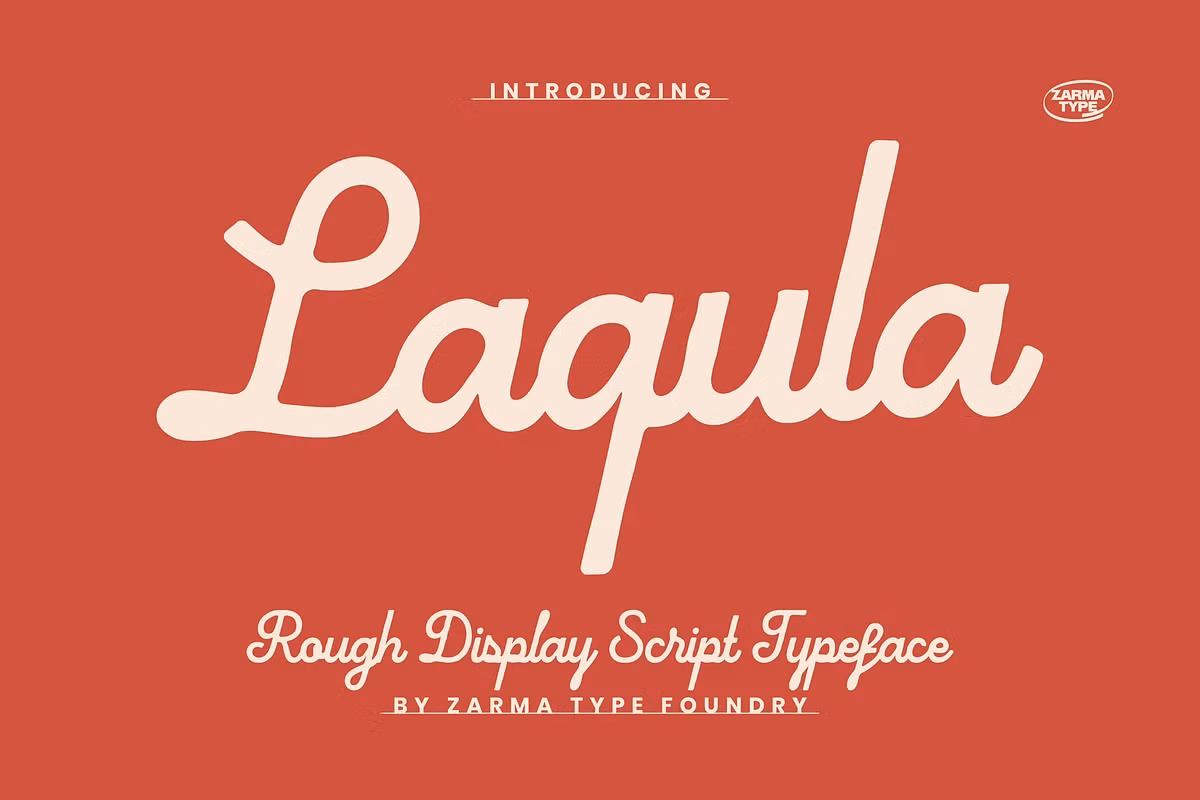
Laqula - Rough Script Font Free Download
Bold, expressive, and full of character, Laqula - Rough Script Font Free Download is a unique script typeface that combines hand-drawn charm with a rough, textured style. Perfect for branding, logos, posters, t-shirt designs, and any project that needs a bold, creative touch, this font stands out with its energetic letterforms and artistic feel.
With its rough edges and fluid strokes, Laqula offers a dynamic, handcrafted look that’s perfect for designs that want to feel personal, raw, and authentic. Whether you're designing a vintage brand, a creative project, or a casual, fun product, Laqula adds personality and flair.